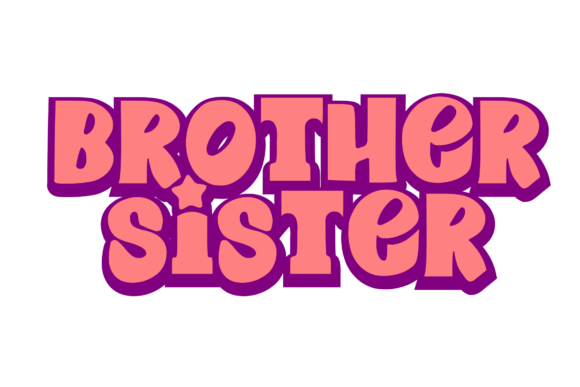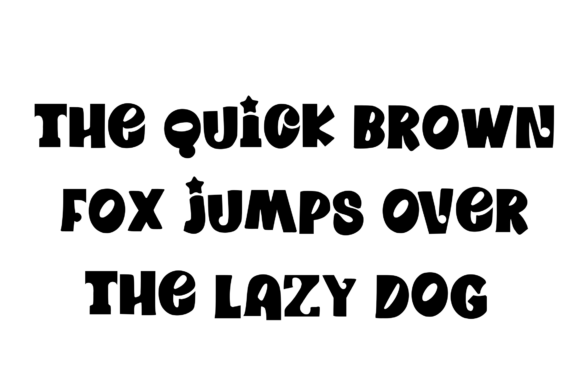
Introduction to Quick Star Font
Have you ever stared at a blank canvas, eager to bring your creative vision to life, only to be stumped by the perfect font to match your artistic intent? That’s where the magic of Quick Star Font comes in – a charming display font that’s sure to elevate your typography designs and breathe new life into your creative projects.
As a designer, you know how crucial it is to have a reliable design resource that can help you convey your message with clarity and style. Quick Star Font is that game-changing tool, offering a high-quality, versatile font that’s perfect for a wide range of creative projects. With its playful demeanor and transparent background, this font is sure to add a touch of whimsy to your designs, making it a valuable addition to any designer’s toolkit.
Key Features of Quick Star Font
- Transparent background for seamless integration with any design
- Supports a wide range of languages, making it a versatile design resource
- Unique, modern design style that adds a touch of elegance to any creative project
- Perfect for use in digital design, including logos, graphics, and web design
Honest Review: Quick Star Font
I recently stumbled upon the Quick Star Font, a free download that I was excited to try out for a creative project. After some experimentation, I have to say that I’m quite impressed.
- ✨ High quality design: The font is crisp and clear, making it perfect for any design project.
- ✨ Versatile: Quick Star Font comes in a variety of weights, from light to bold, making it easy to find the perfect fit for your design.
- ✨ Transparent background: This feature is super handy when working with complex backgrounds or layered designs.
One thing to note is that the font may not be suitable for all projects. For example, if you’re working on a project that requires a specific font with a unique style, you may find that Quick Star Font doesn’t quite fit the bill.
- ⚠️ Limited expressiveness: While the font is high quality, it may not convey the same level of emotion or style as a custom-designed font.
- ⚠️ May not be suitable for small text: Due to its simple design, Quick Star Font may not be the best choice for small text or intricate details.
Overall, I think Quick Star Font is a solid addition to any designer’s toolkit. It’s free, high quality, and versatile – what more could you ask for?
Getting the Most Out of Quick Star Font
To get the most out of Quick Star Font, use it in conjunction with other design elements to create a visually appealing design. Experiment with different font sizes, colors, and combinations to find the perfect look for your creative project.
Some common use cases for the Quick Star Font include creating invitations, business cards, and presentations. Its elegant design and transparent background make it perfect for adding a touch of sophistication to any creative project.